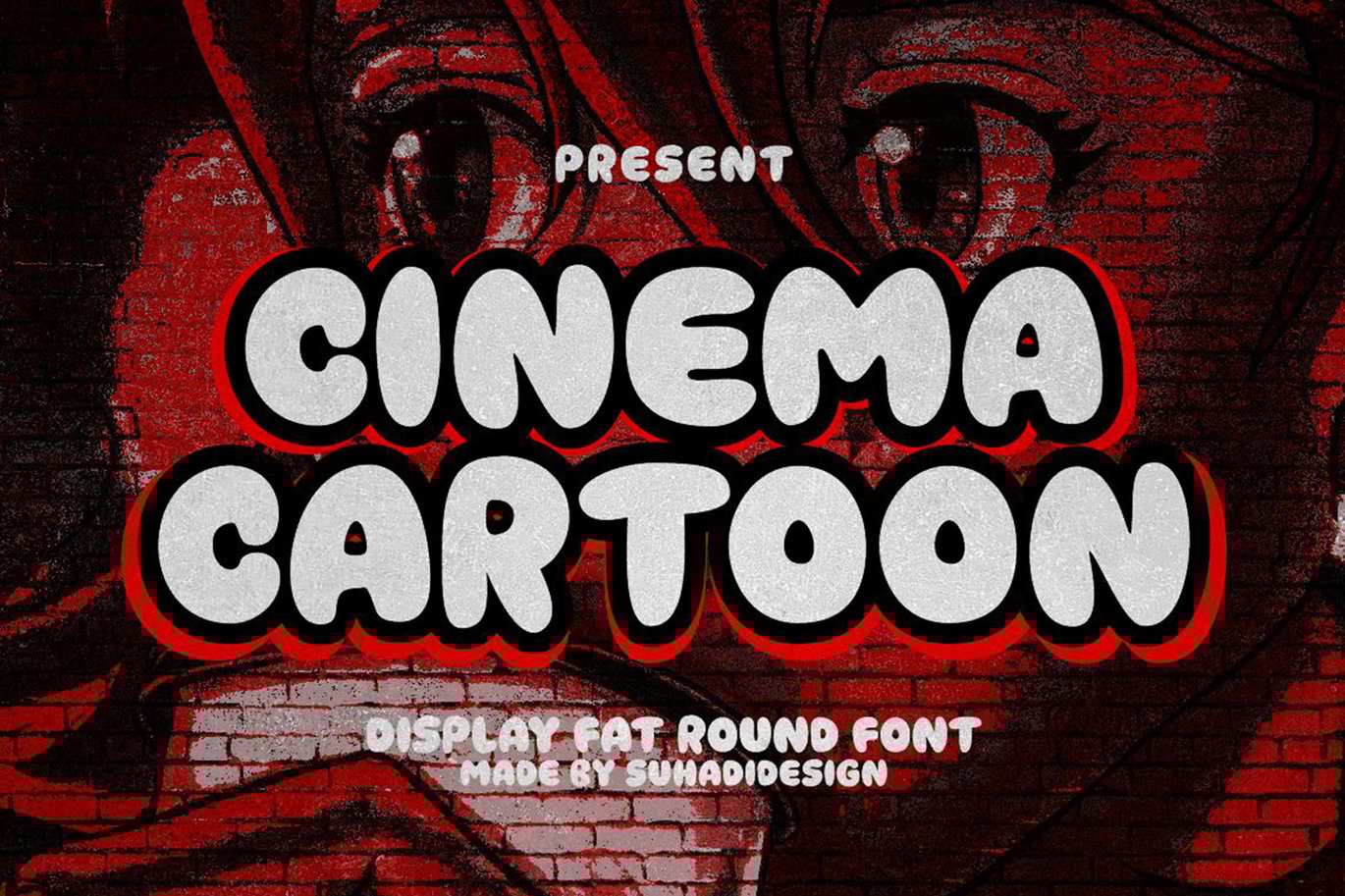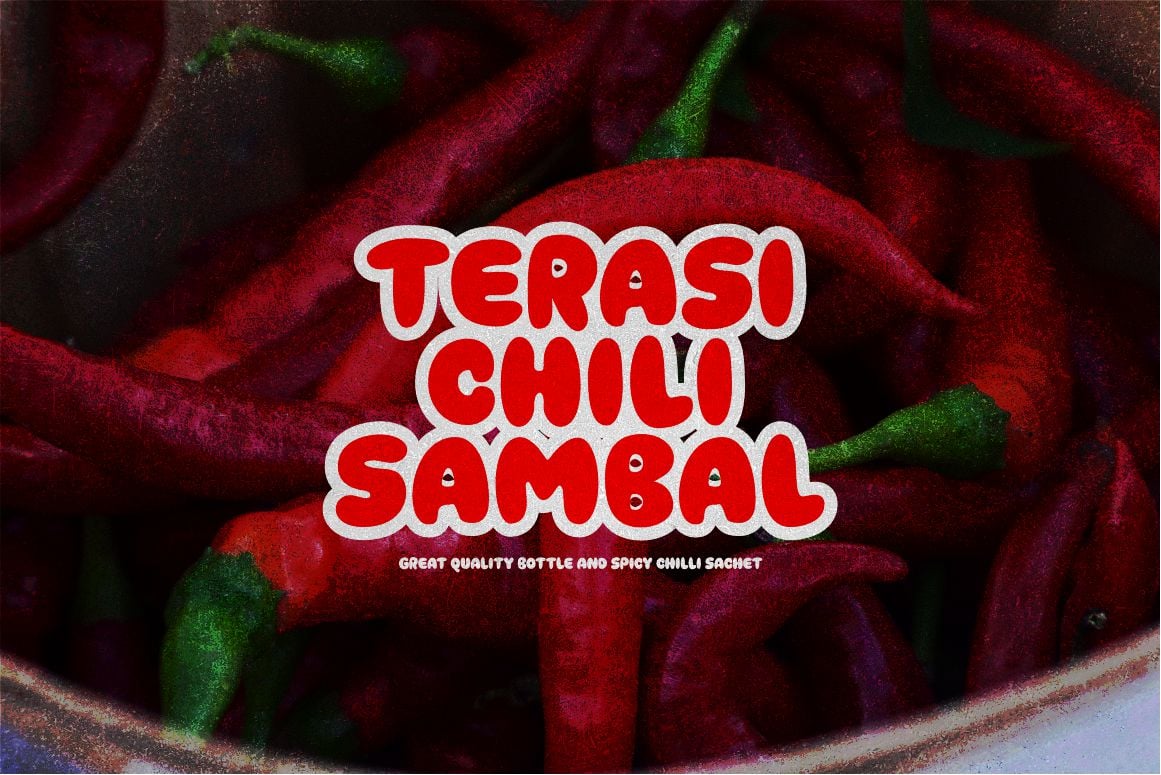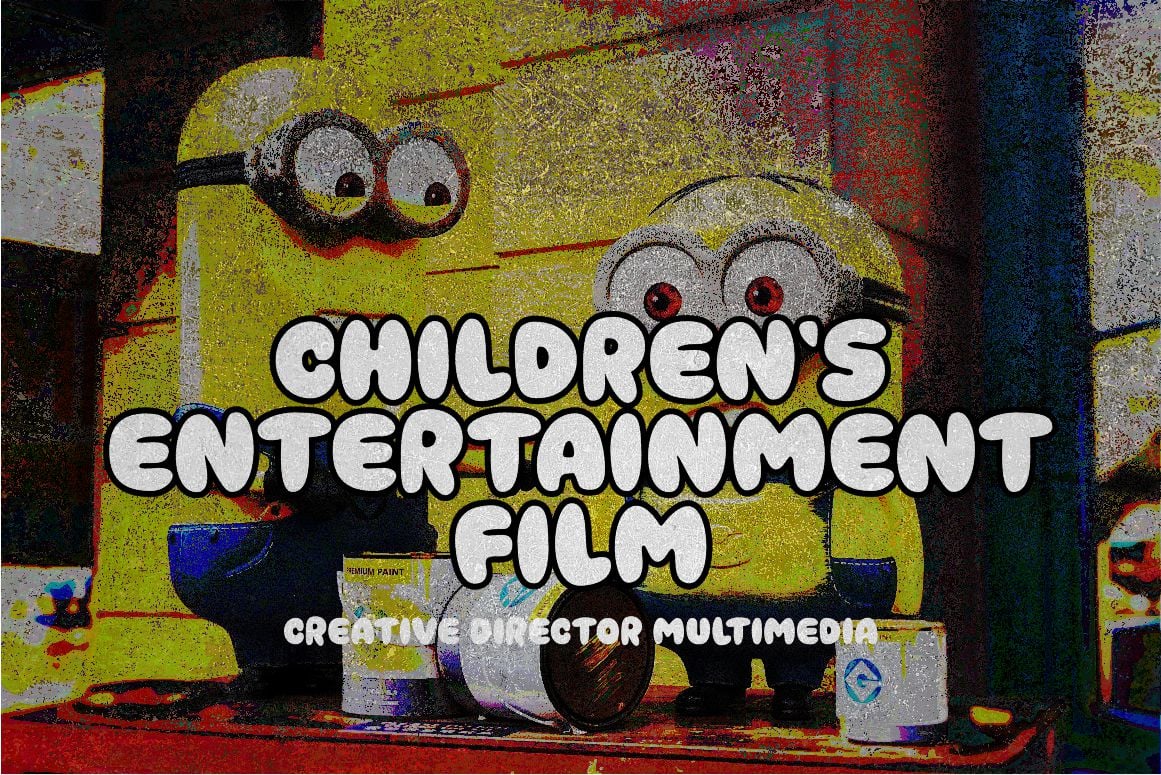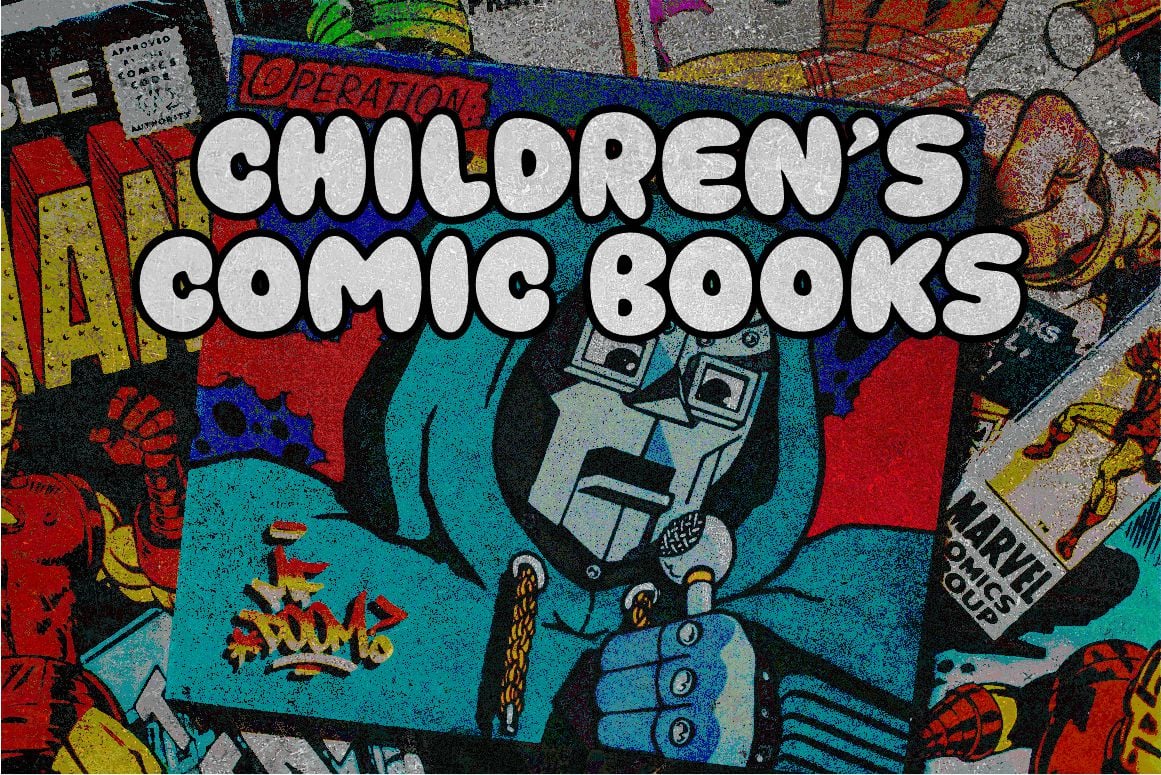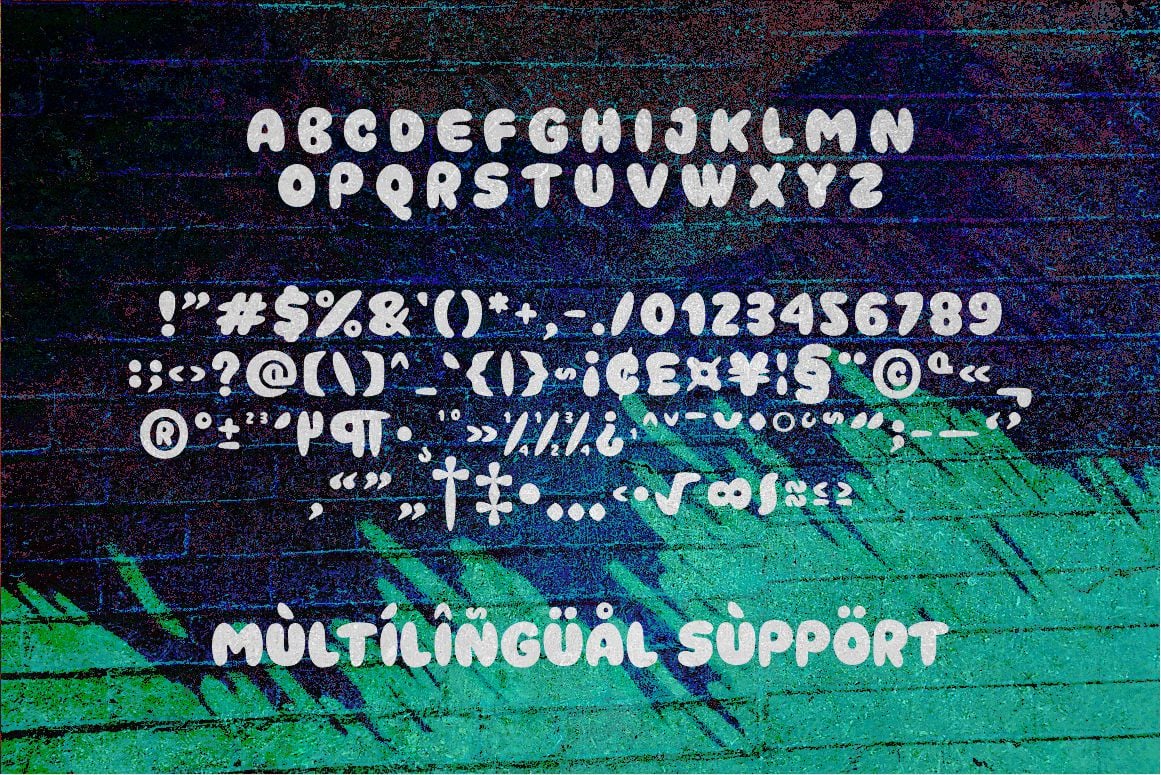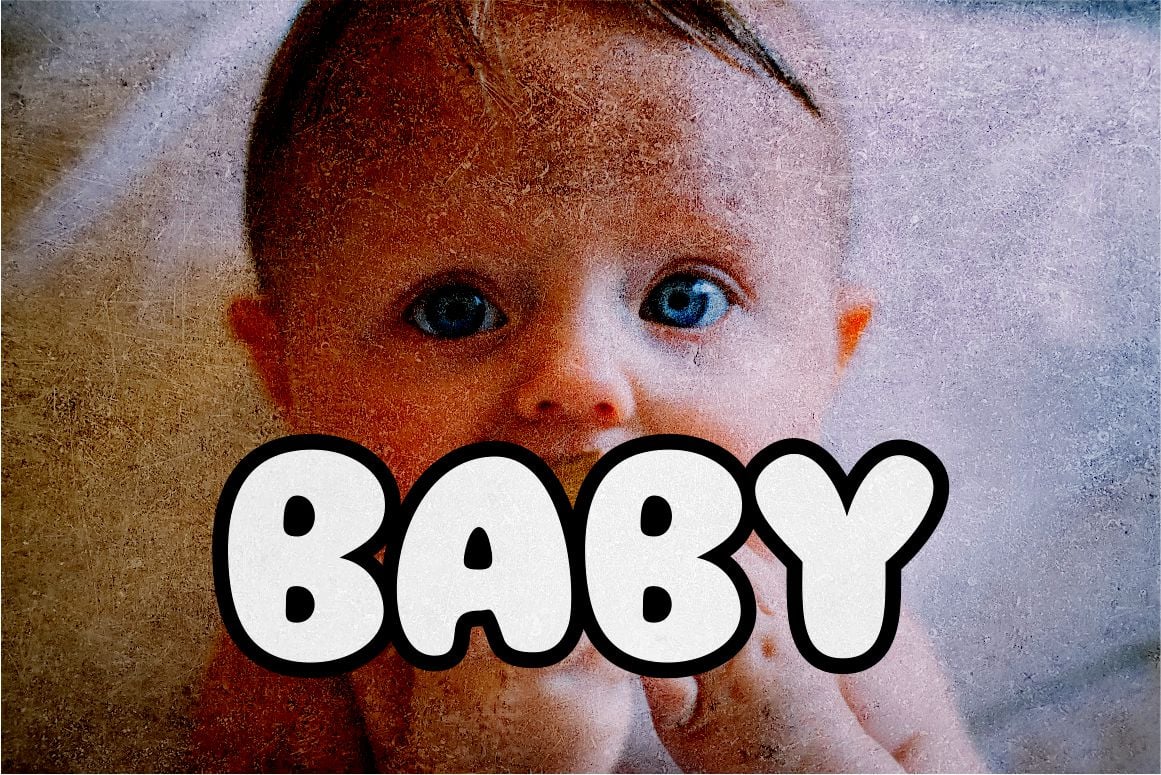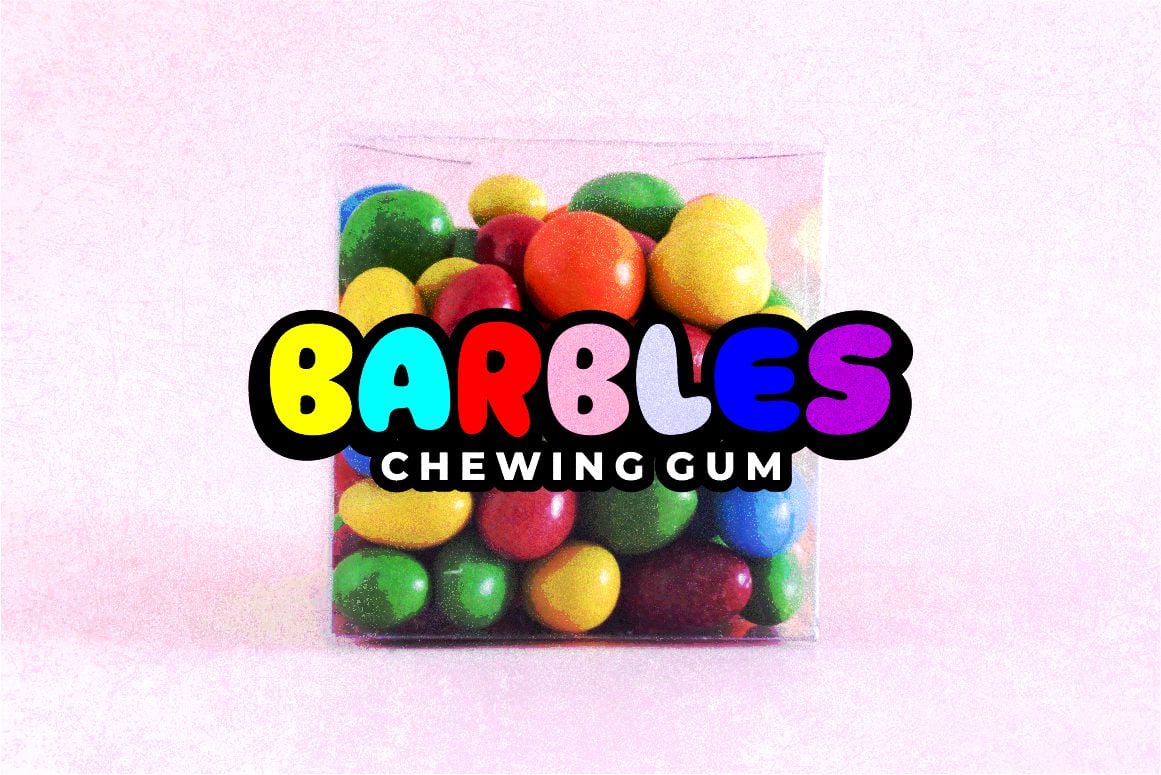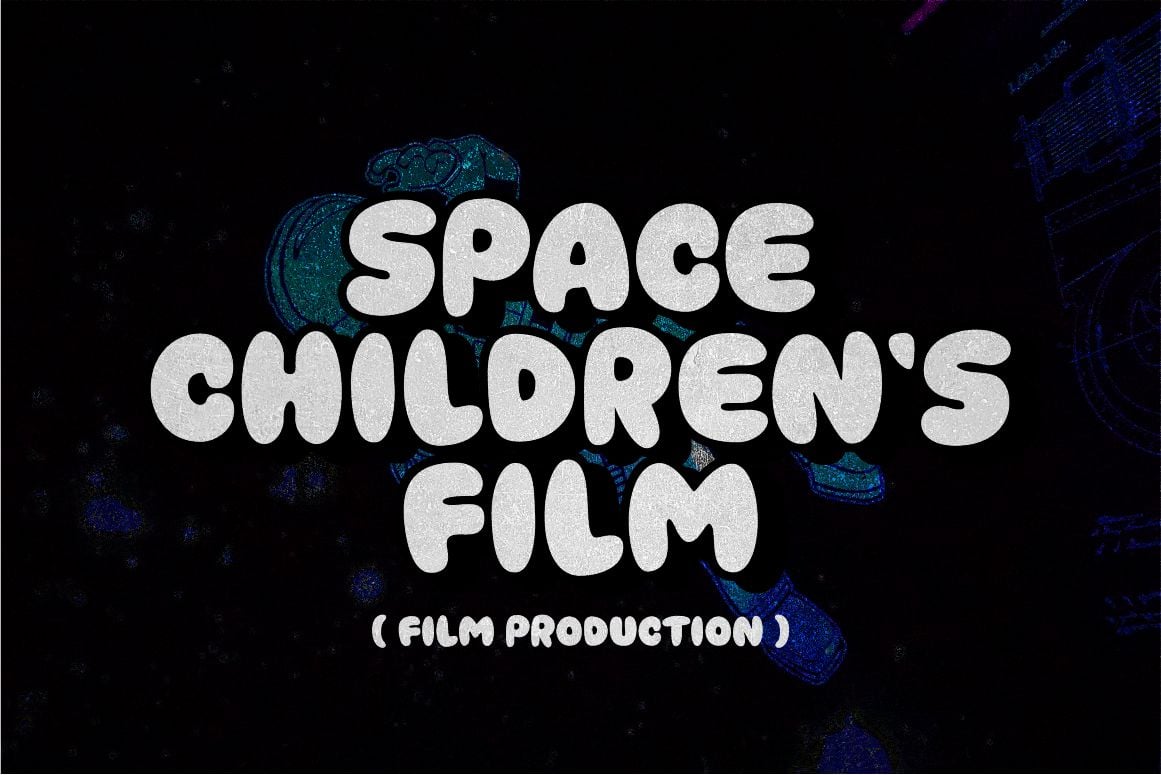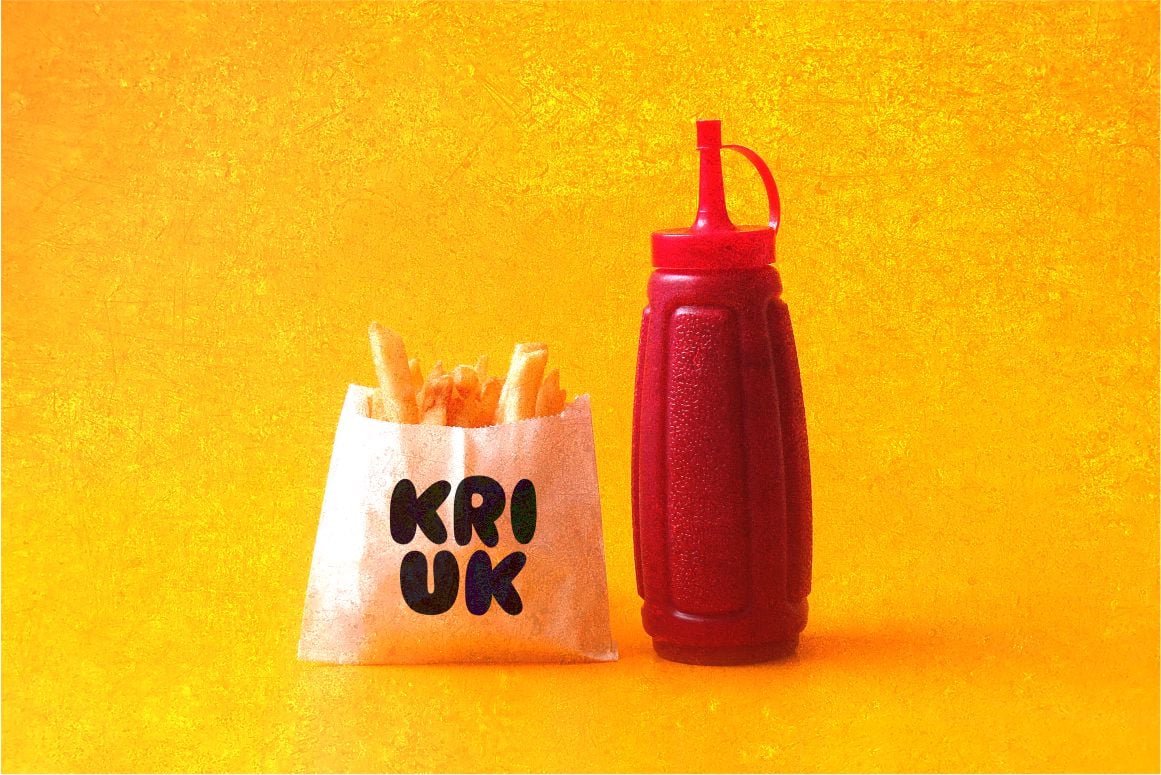
Cinema Cartoon Fat Round Font
In accordance with the market need for handwritten display fonts, I created this handwritten display font. The Cinema Cartoon font is a round, fat display font. designed to become a favorite market. We made this font look cool, classy, contemporary, stylish, attractive and interesting. Cinema Cartoon Font is a great choice for children, babies, children’s films, cartoons, comics, accessories, candy or gum brands, food, dining brands and other projects. The Cinema Cartoon font was designed to improve the quality of your design.
Feature:
• All caps style
• Multilingual Support
• Numbers and punctuation